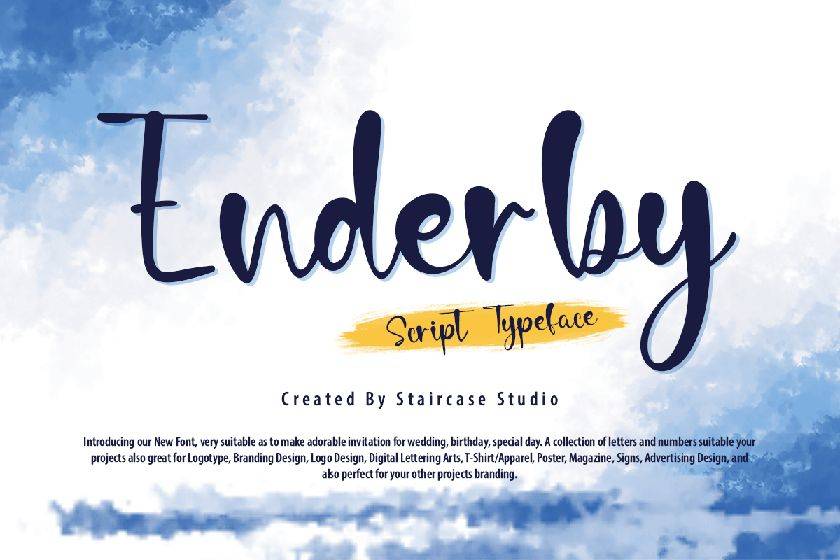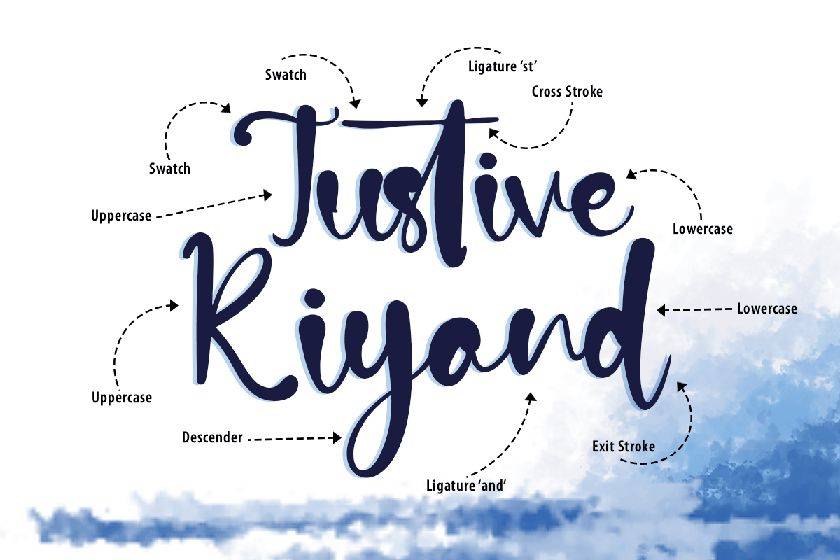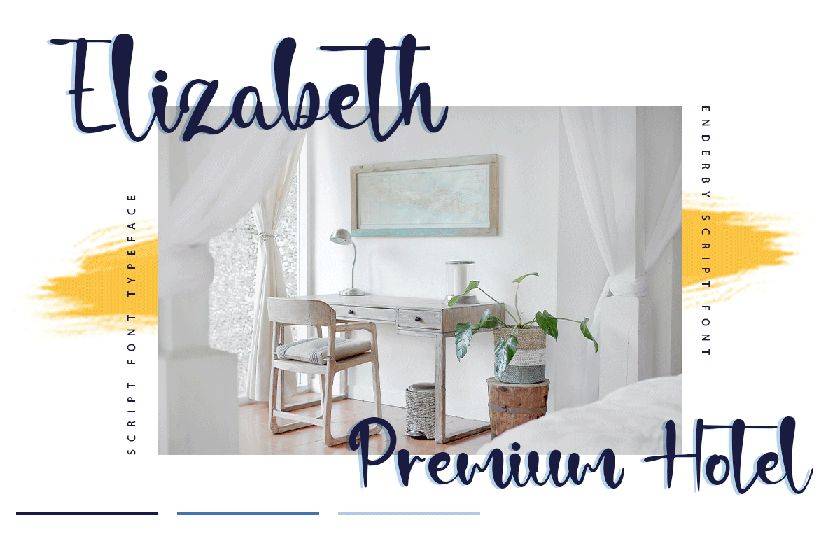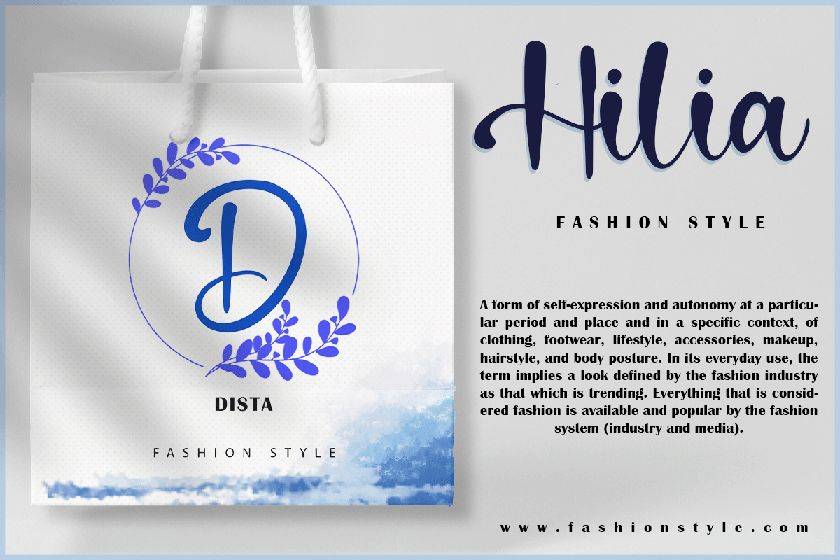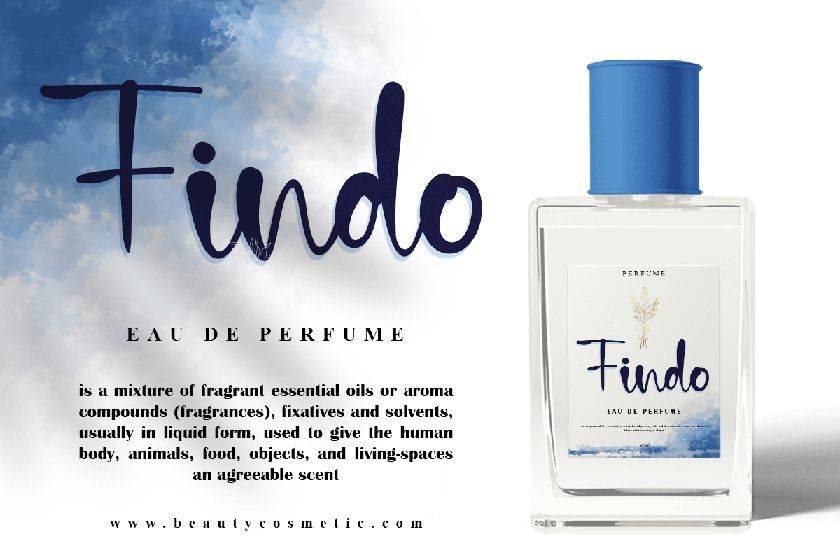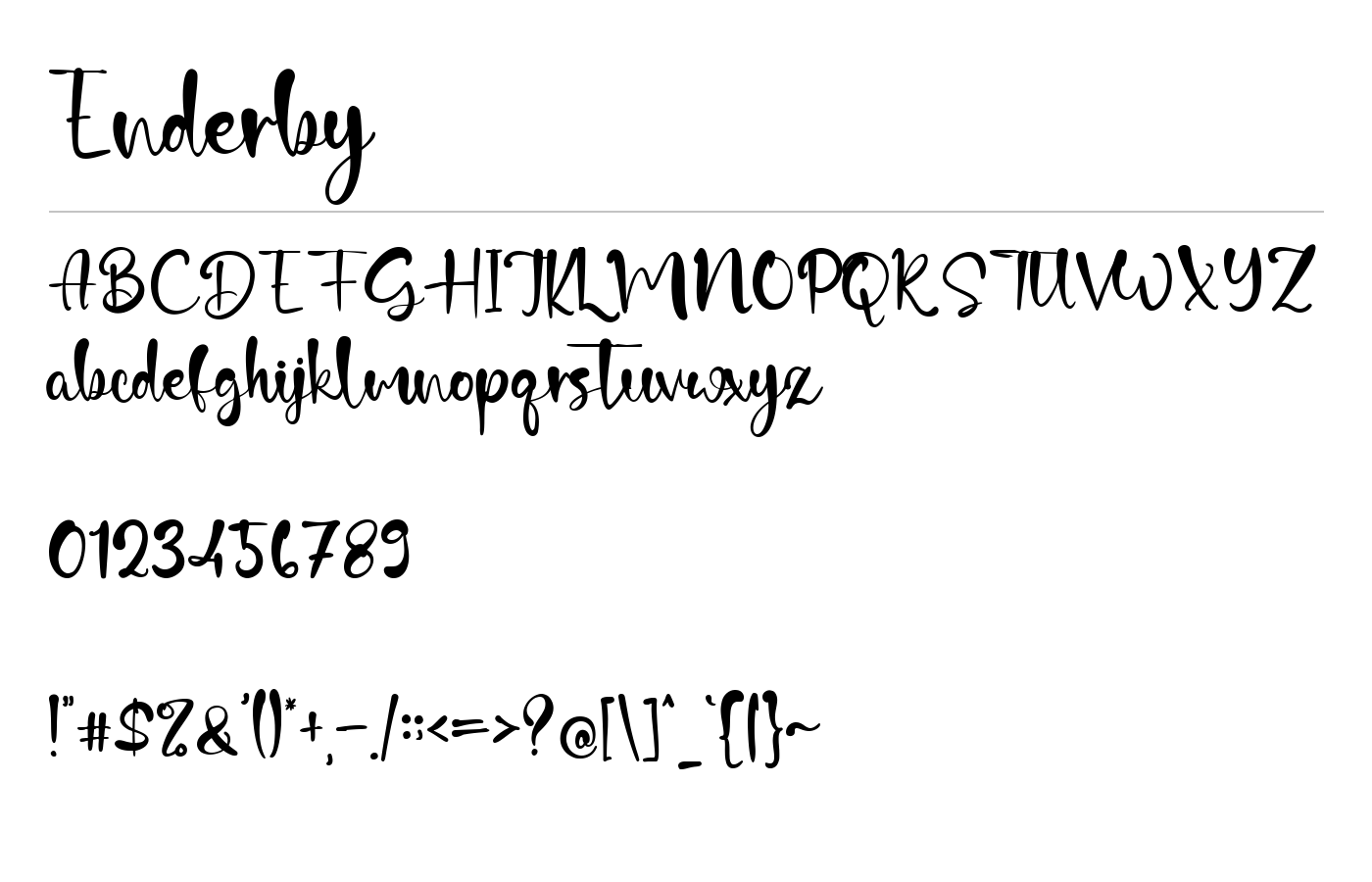
Enderby is a playful, handwritten script font with a casual, friendly feel. Its moderately bold strokes and irregular, organic shapes give it a warm and personal touch, making it ideal for creative branding, invitations, and informal designs where a welcoming, approachable tone is desired. The font’s lively character and clear legibility also suit packaging and headline uses that seek to convey charm and uniqueness.
Enderby Font
About Enderby Font
| Font family | Enderby Font |
| Designer | Staircase Studio |